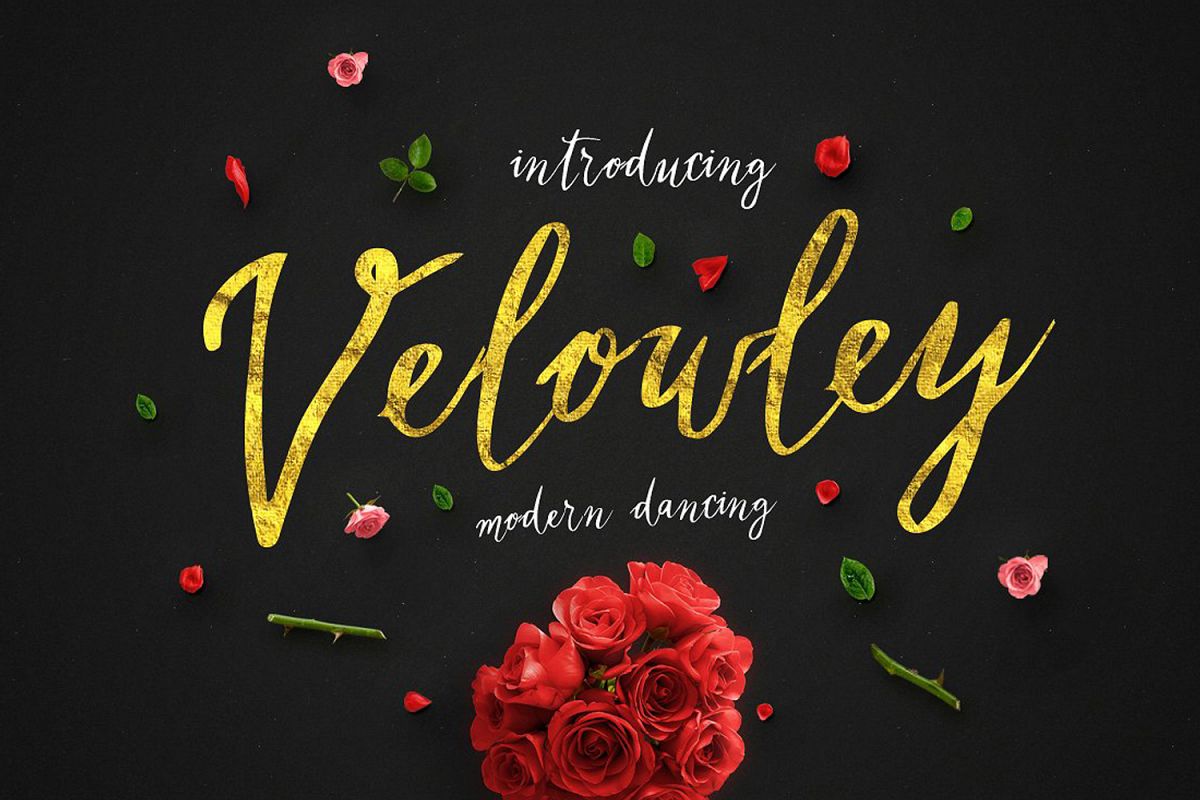
velowley Dancing Script
Velowley is a hand drawn, elegant, modern calligraphic font perfect for wedding design projects, invitations, greeting cards, signatures, watermarks, logos, handwriting and more.